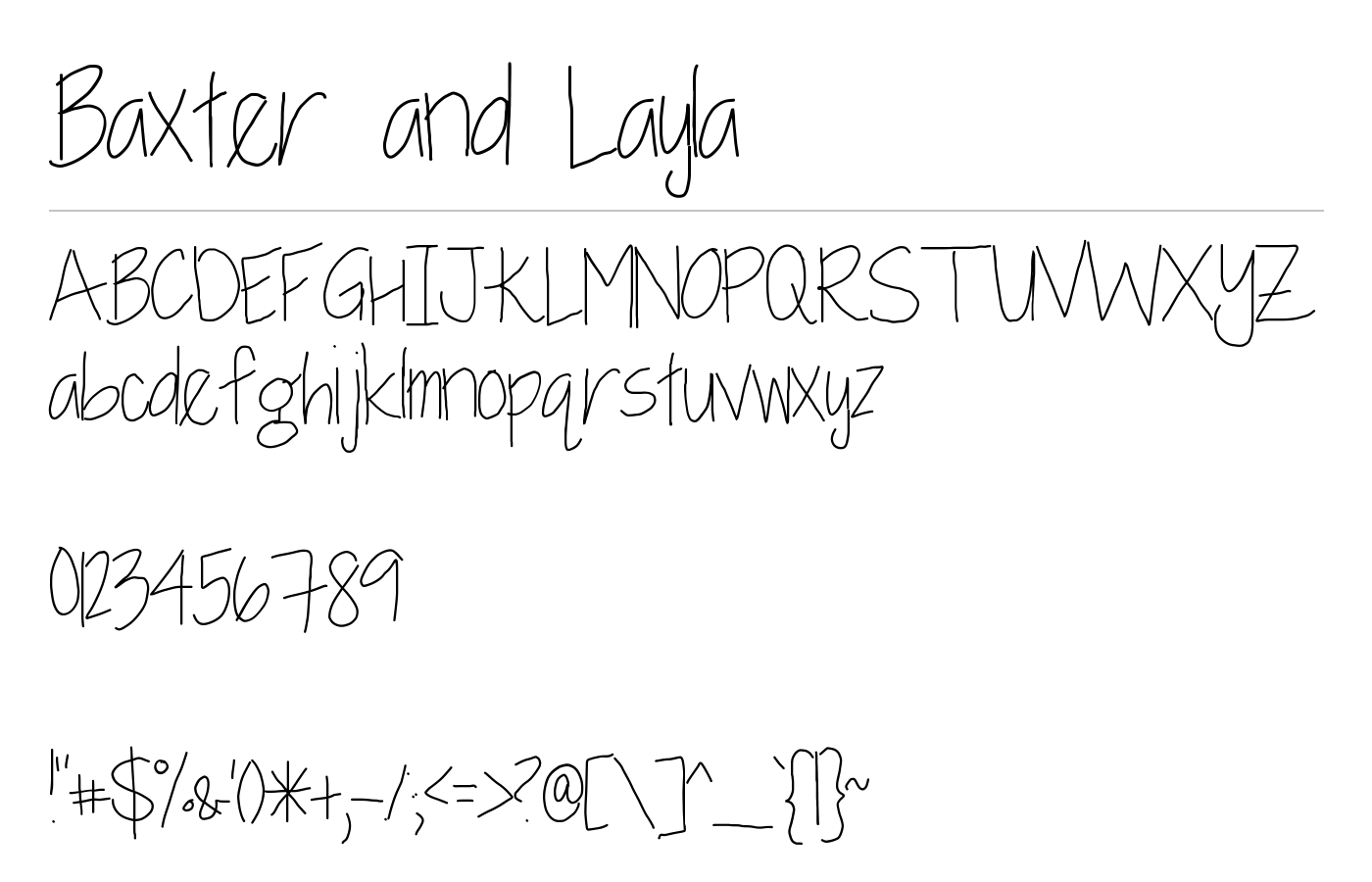
Baxter and Layla is a playful, thin handwritten font with a casual and friendly feel, featuring tall, narrow letterforms that mimic natural handwriting with slight irregularities. Its light stroke weight and airy spacing make it ideal for informal designs like invitations, children's books, or creative branding that seeks an approachable and personal touch. This font works well in projects where a unique, handwritten style is needed to convey warmth and individuality.
Baxter and Layla Font
About Baxter and Layla Font